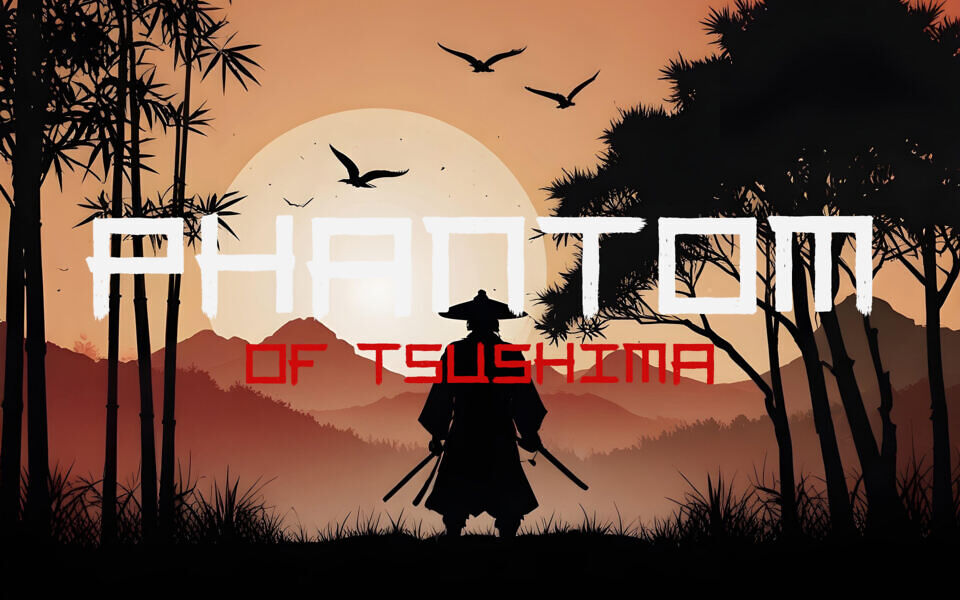
Tsushima Font
The Tsushima font channels the bold elegance of the Ghost of Tsushima logo, featuring sharp, angular strokes and balanced proportions that evoke traditional samurai aesthetics. Each character blends modern clarity with ancient Japanese calligraphic influences, mirroring the game’s fusion of cinematic drama and historical authenticity.
Its clean yet dramatic lines make it perfect for striking headlines, gaming content, or culturally inspired branding. Designed by JCGlenn and free for personal use, it captures the spirit of Tsushima Island: disciplined, powerful, and unmistakably iconic.